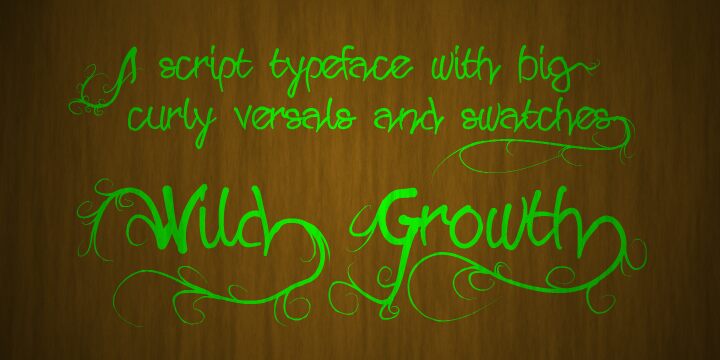
Wild Growth by Måns Grebäck is a free trash script with oversized strokes, abrupt joins, and a deliberately unruly baseline. Fine looping marks tangle behind the heavier letters, giving the design the look of hurried ink layered over rough sketches.
It fits rebellious music labels and streetwear brands that favor raw, improvised lettering. The dense movement also suits concert posters and skateboard graphics. Its strongest audience is designers working with punk, underground, or youth-culture themes.